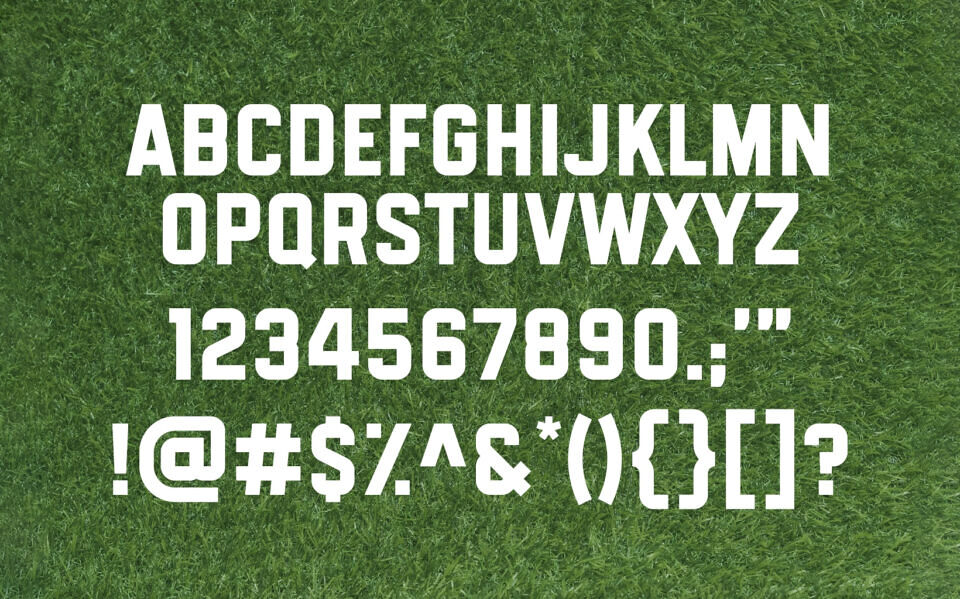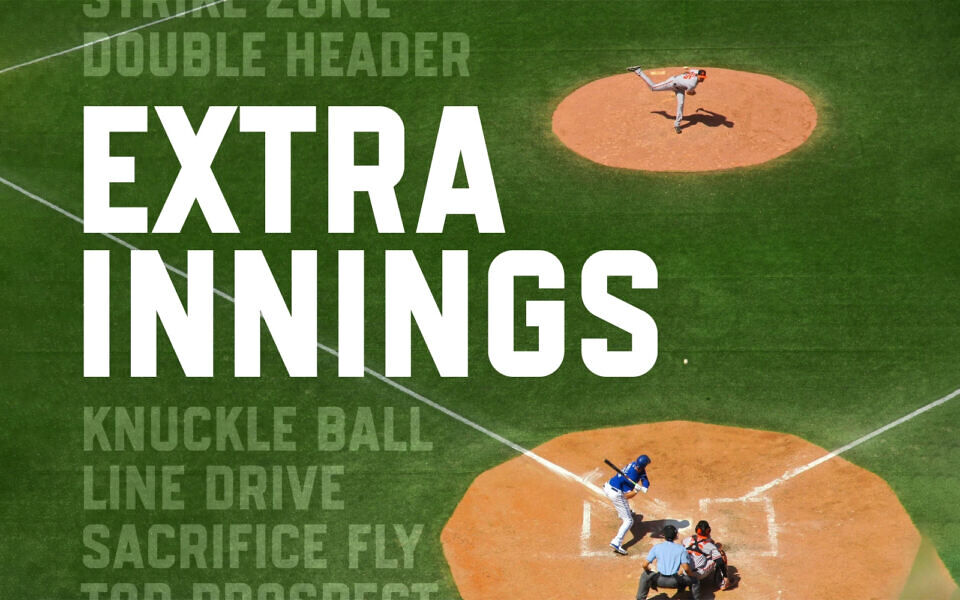
Extra Innings is a bold, athletic-inspired display typeface designed by Edward Batkins, capturing the energy and spirit of American baseball. With strong geometric letterforms and squared edges, this all-caps font exudes confidence and performance, making it ideal for sports branding, posters, and team gear.
Styled like classic scoreboard lettering and jersey prints, Extra Innings delivers a powerful presence, especially when paired with vibrant, action-packed imagery. It’s a free font that hits a home run for any project needing a tough, all-star aesthetic.